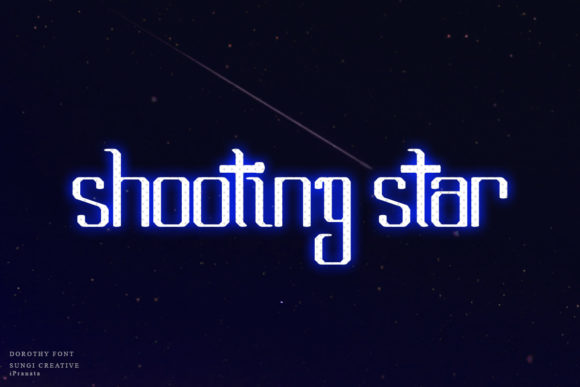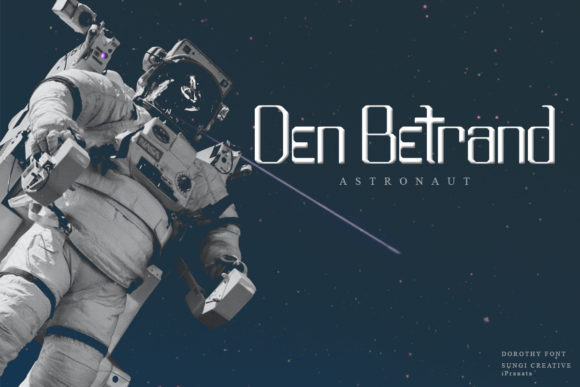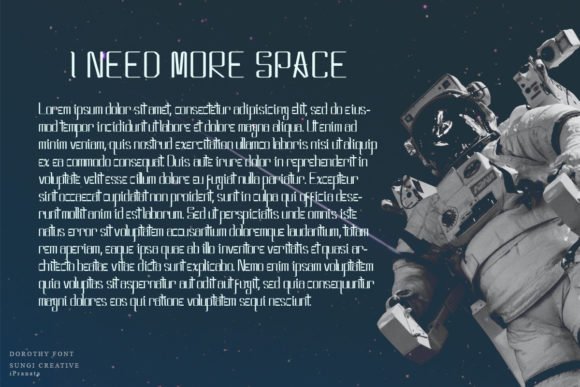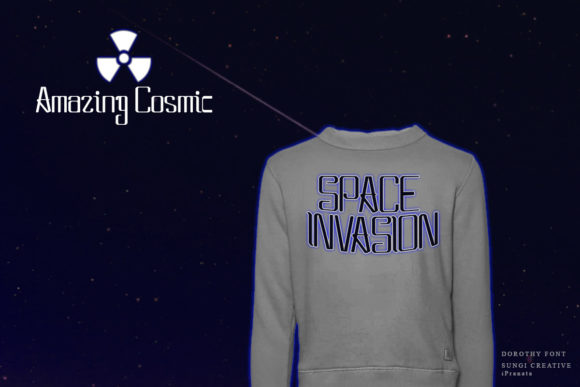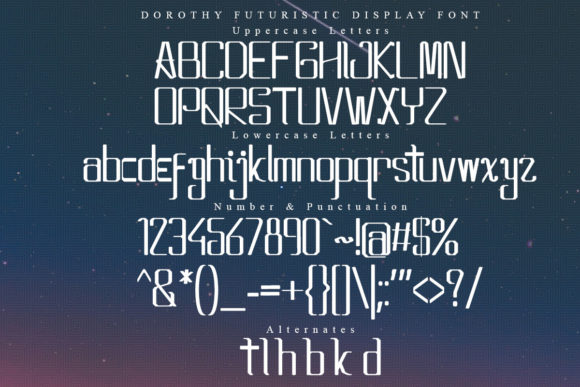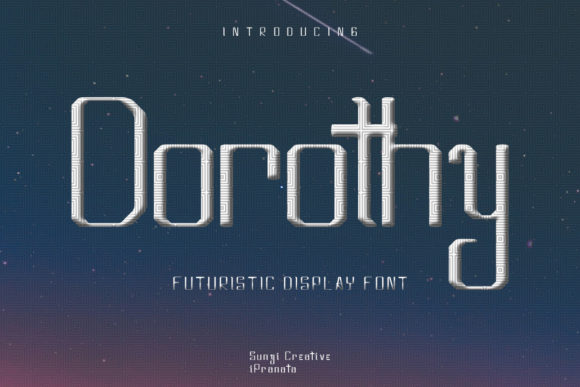
Dorothy Font: A Futuristic and Techno-Looking Display Font
In the world of typography, fonts play a crucial role in conveying messages, expressing emotions, and creating visual identities. For designers and crafters, finding the right font can make all the difference in their creative projects. If you’re looking for a font that adds a unique touch to your designs, look no further than the Dorothy Font. This futuristic and techno-looking display font is ideal for writing web designs, business cards, or pretty much anything else that requires a bold and eye-catching look.
What is Dorothy Font?
Dorothy Font is a display font designed to make a statement. Its futuristic and techno-inspired design makes it perfect for projects that require a modern and edgy look. The font features clean lines, sharp edges, and a bold aesthetic that is sure to grab attention. Whether you’re designing a website, creating business cards, or crafting social media graphics, Dorothy Font is an excellent choice.
Key Features of Dorothy Font
- Unique and Modern Design: Dorothy Font boasts a unique and modern design that sets it apart from other fonts. Its futuristic look makes it perfect for projects that require a cutting-edge aesthetic.
- Highly Versatile: This font is highly versatile and can be used for a wide range of projects, including web designs, business cards, brochures, posters, and more.
- Easily Readable: Despite its bold and futuristic design, Dorothy Font is easily readable, making it perfect for body text and headlines.
- Scalable: The font is highly scalable, ensuring that it looks great on various devices and screen sizes.
Uses of Dorothy Font
Dorothy Font is an excellent choice for various design projects, including:
- Web Design: Use Dorothy Font to create stunning website headers, titles, and buttons that grab attention.
- Business Cards: Add a unique touch to your business cards with Dorothy Font, making them stand out from the crowd.
- Social Media Graphics: Create eye-catching social media graphics, such as Facebook posts, Twitter headers, and Instagram stories, using Dorothy Font.
- Advertising: Use Dorothy Font to create bold and attention-grabbing ads that drive results.
Tips for Using Dorothy Font
To get the most out of Dorothy Font, follow these tips:
- Use it Sparingly: Use Dorothy Font sparingly to avoid overwhelming your design. It works best as a headline or title font.
- Pair it with Other Fonts: Pair Dorothy Font with other fonts to create visual interest and hierarchy in your design.
- Experiment with Colors: Experiment with different colors to find the perfect combination that works with Dorothy Font.
Dorothy Font is a powerful and versatile display font that can elevate your designs to the next level. Its futuristic and techno-inspired design makes it perfect for projects that require a modern and edgy look. With its highly readable and scalable design, Dorothy Font is an excellent choice for designers and crafters looking to add a unique touch to their projects. So, download Dorothy Font today and take your designs to new heights!
- What is the style of Dorothy Font? Dorothy Font is a futuristic and techno-looking display font.
- What is Dorothy Font best used for? Dorothy Font is best used for web designs, business cards, social media graphics, and advertising.
- Is Dorothy Font easily readable? Yes, Dorothy Font is easily readable, making it perfect for body text and headlines.